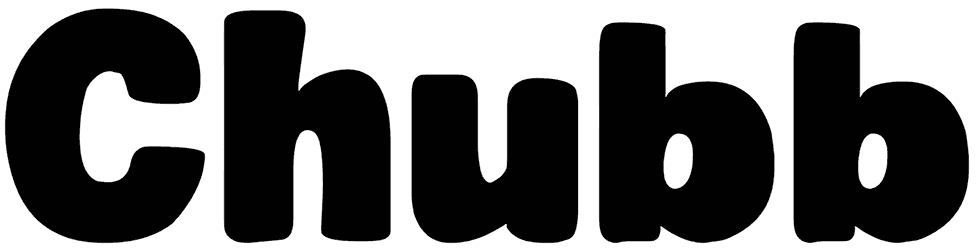
MTF Chubb Font
If you want to get your message across as clearly as possible and are tired of flashy fonts, MTF Chubb is for you. This font has a solid and unchanging texture that can shout your message out loud and will not fade over…
If you want to get your message across as clearly as possible and are tired of flashy fonts, MTF Chubb is for you. This font has a solid and unchanging texture that can shout your message out loud and will not fade over time. Therefore, it is perfect for advertising, packaging, wall posters, and almost anything that requires transparency.